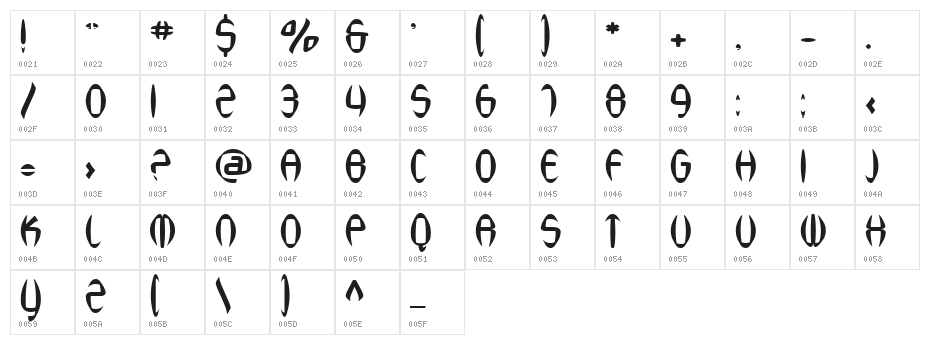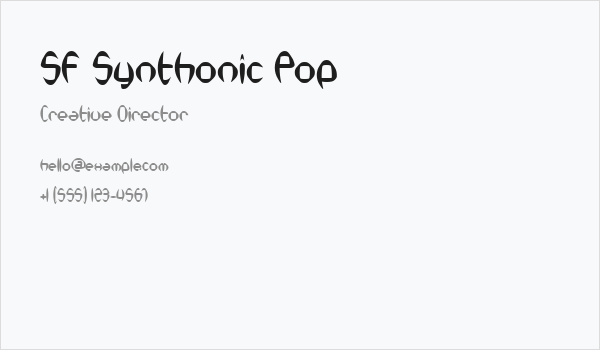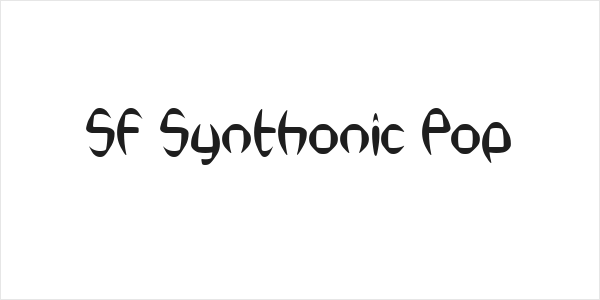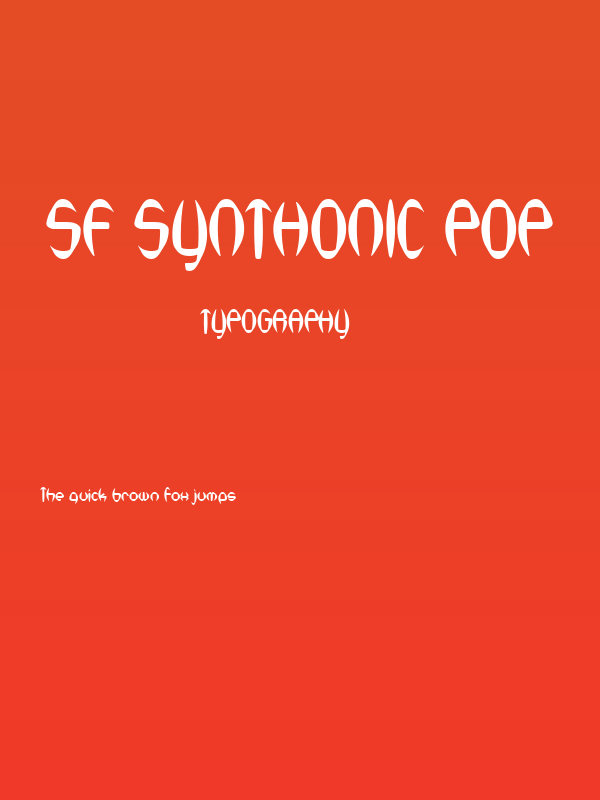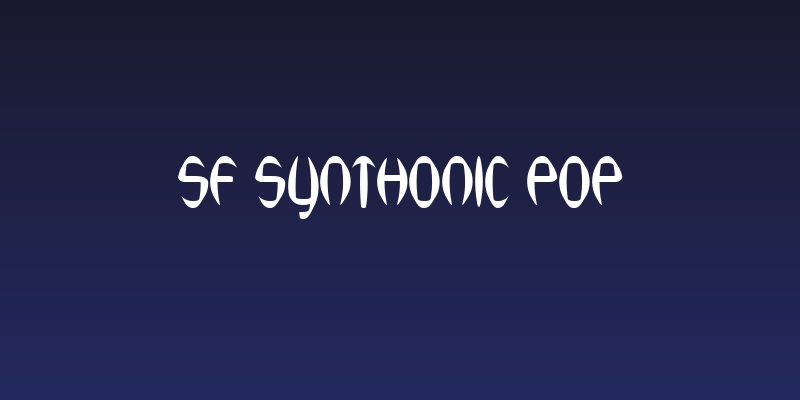
SF Synthonic Pop Font
SF Synthonic Pop Description
This font features a futuristic and bold design, characterized by its unique, rounded shapes and sharp edges. The letters have a distinct, almost alien-like appearance, with a consistent thickness that gives it a strong presence. The uppercase and lowercase letters maintain a cohesive style, with the lowercase being slightly more compact. Numbers and special characters follow the same design principles, ensuring uniformity across all glyphs. The font's style is reminiscent of science fiction themes, making it ideal for projects that require a modern and edgy look.
| Proposed Projects | Ideal for science fiction book covers, movie posters, video game titles, and futuristic branding. |